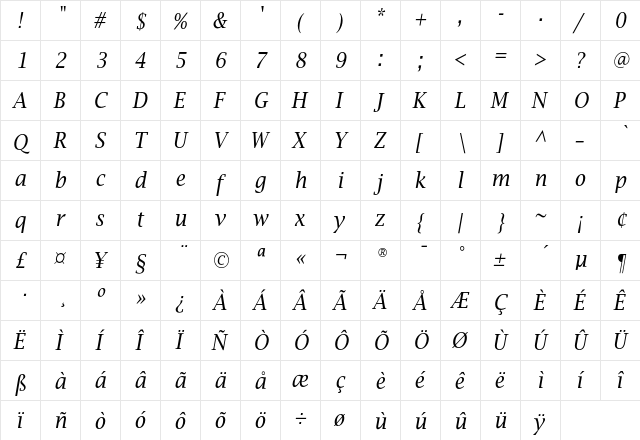
LucidaBrightNarEF Ita
Design Context for LucidaBrightNarEF Typeface
LucidaBrightNarEF is a composed and adaptable typeface that performs quietly and consistently across a wide range of design contexts. The dynamic lean of this cut emphasises speed and emphasis in any layout.
Pro Tip: Try LucidaBrightNarEF for annotation and caption copy alongside an upright companion — the contrast in angle creates a dynamic but ordered typographic system.